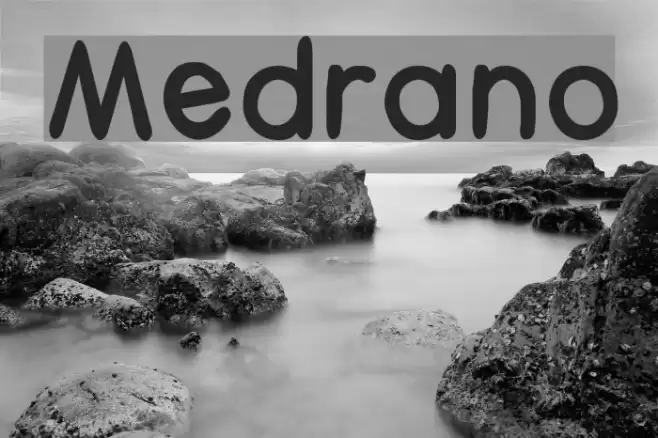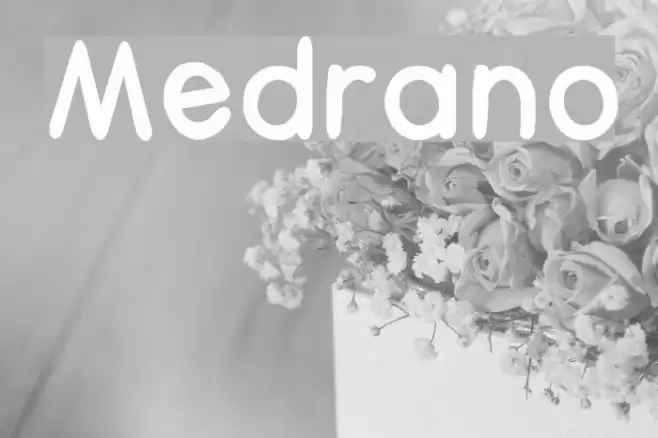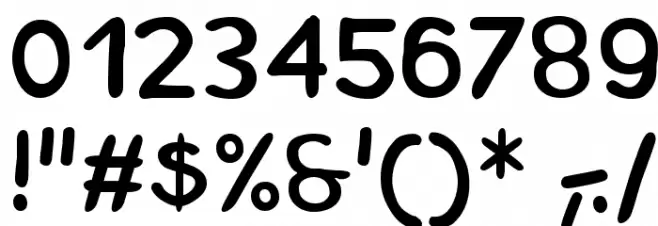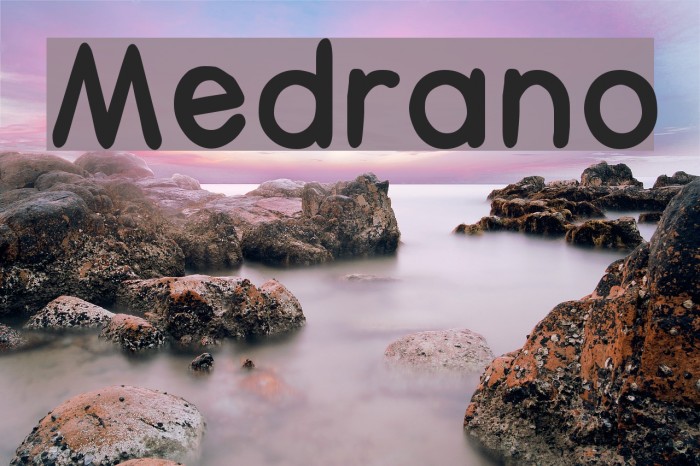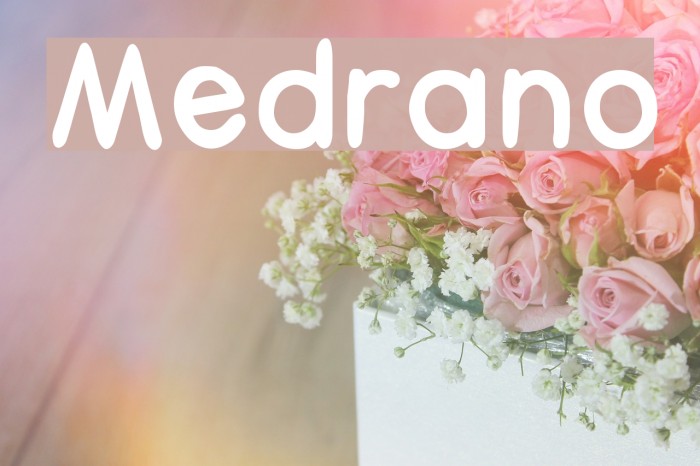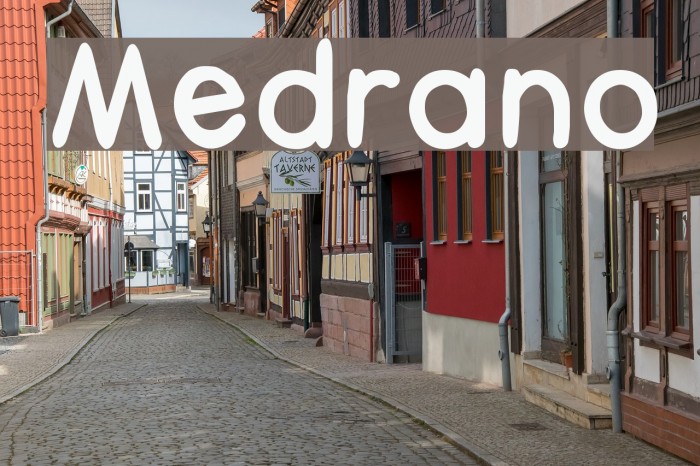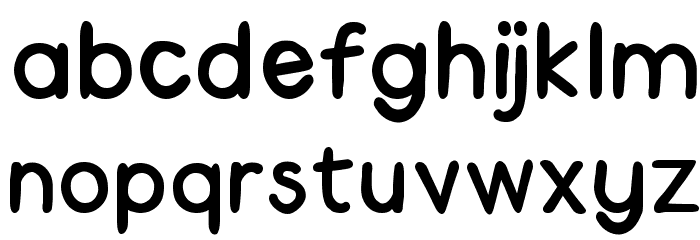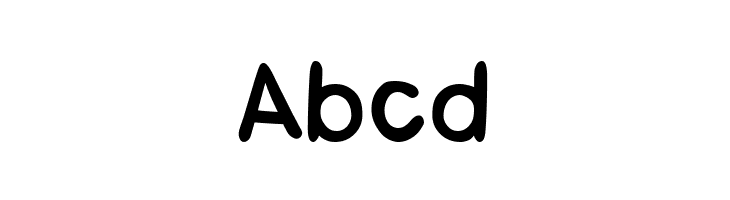
Medrano Font
Medrano Description
This playful and rounded font features a casual, handwritten style that exudes a friendly and approachable vibe. The characters are bold and slightly irregular, giving them a whimsical and informal appearance. The uppercase and lowercase letters maintain a consistent flow, while the numerals and special characters complement the overall design with their smooth curves and balanced proportions. The font's simplicity and charm make it ideal for projects that require a touch of personality and warmth.
A playful, rounded, and handwritten-style font with a friendly vibe from Script fonts.
- Proposed Projects: Ideal for children's books, greeting cards, playful branding, and casual invitations.
- Overall Style: Casual, Playful
- Use Case: Headlines, Logos, Informal Text